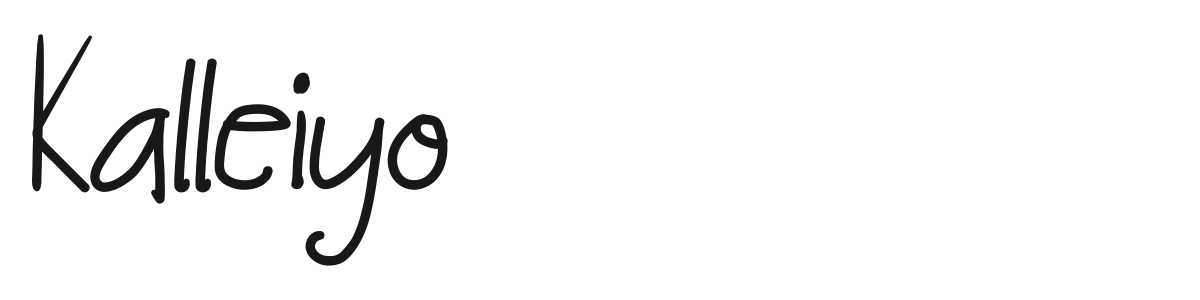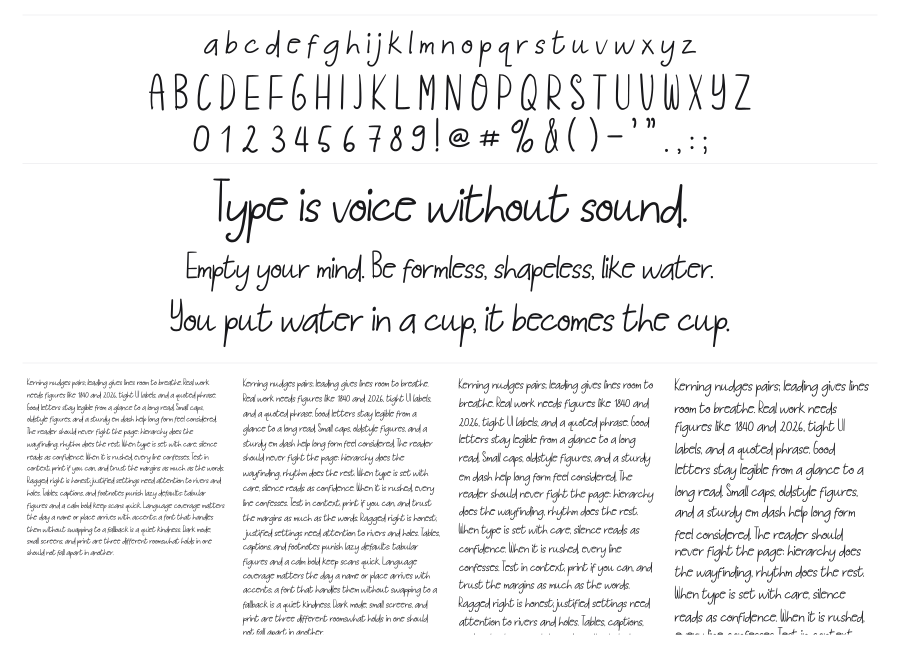
Kalleiyo
by Denny Sutanto
Kalleiyo is a cute hand-drawn script with a natural, flowing rhythm and gently irregular baseline. The near-monoweight strokes and rounded terminals keep it light and approachable, making it a go-to for branding and invitations that need a personal, crafted feel. It moves across a line the way real handwriting does, without tipping into chaos.